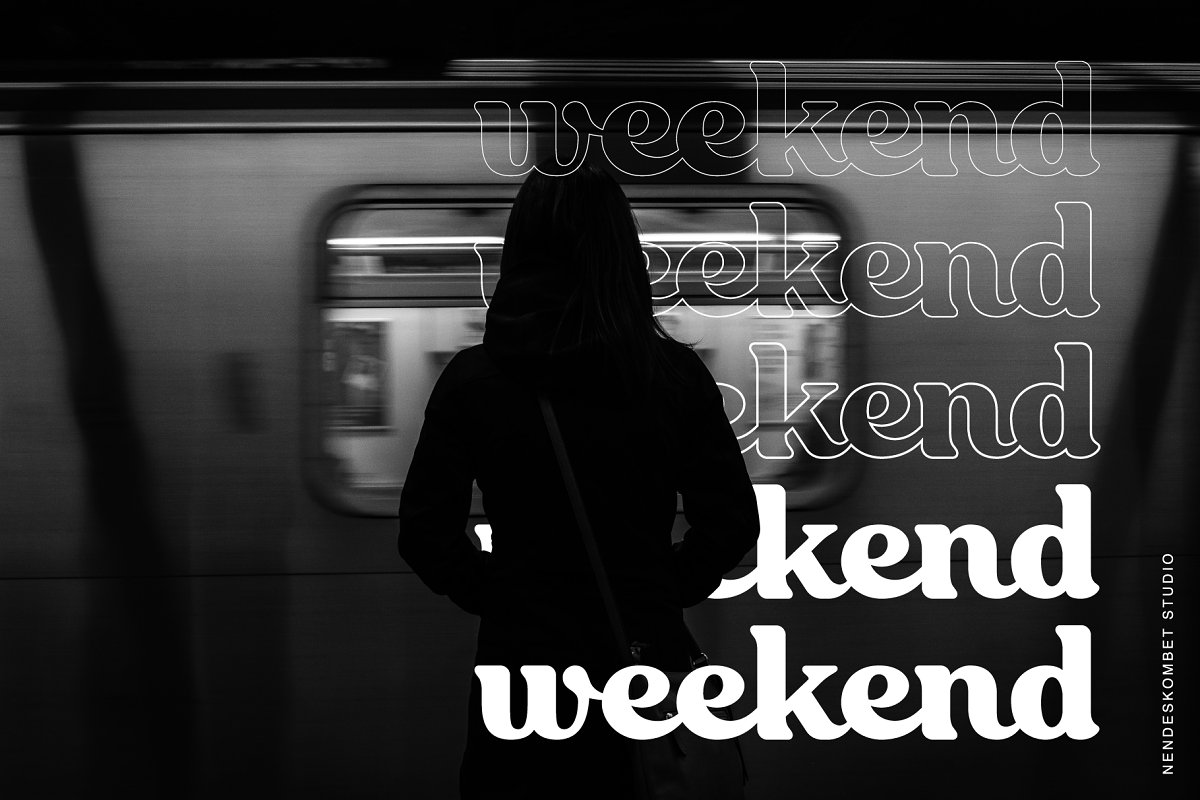
About the commuter modern serif font
Introducing commuter is a minimalist modern elegant font with connection between letters, tons of special alternative glyphs appropriate, and multilingual support, It’s a very versatile font that works great in large and small sizes, commuter is perfect for branding projects, logo design, clothing branding, product packaging, magazine headers, or simply as a stylish text overlay to any background image